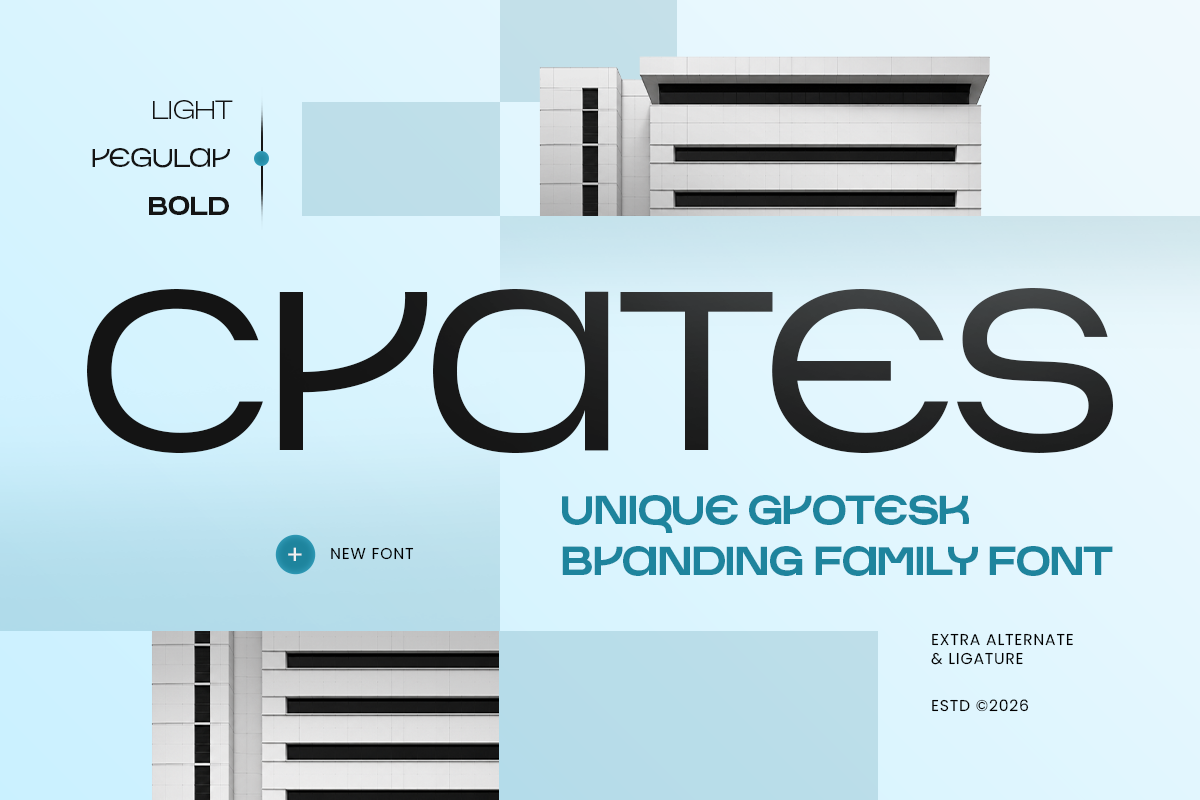
Crates
-Grotesk Branding Font Family
CRATES - Grotesk Branding Font Family
CRATES is a modern grotesk branding font family designed with clean geometry, balanced proportions, and a professional contemporary feel. Its refined sans serif character delivers a strong yet approachable visual identity, making it an excellent choice for brands that need clarity, consistency, and timeless style.
Designed for versatile creative applications, CRATES works beautifully for logos, brand identity, packaging, editorial layouts, websites, UI/UX interfaces, social media graphics, and corporate communication. The flexible font family structure allows designers to create cohesive typography across different platforms and visual systems.
With its minimal aesthetic and polished details, CRATES brings a sophisticated modern touch to startups, technology brands, lifestyle products, fashion labels, and creative agencies. This grotesk typeface combines functionality with personality, giving every project a confident and professional appearance.
CRATES – Grotesk Branding Font Family Features
• Modern grotesk sans serif letterforms with clean structure
• Versatile font family for branding and visual identity systems
• Ideal for logos, packaging, editorial, and UI/UX design
• Balanced spacing for excellent readability and flexibility
• Great for digital platforms and professional print projects
• OpenType features for creative typographic control
Elevate your brand identity with CRATES – a modern grotesk font family crafted for clean, timeless, and professional design. ✨